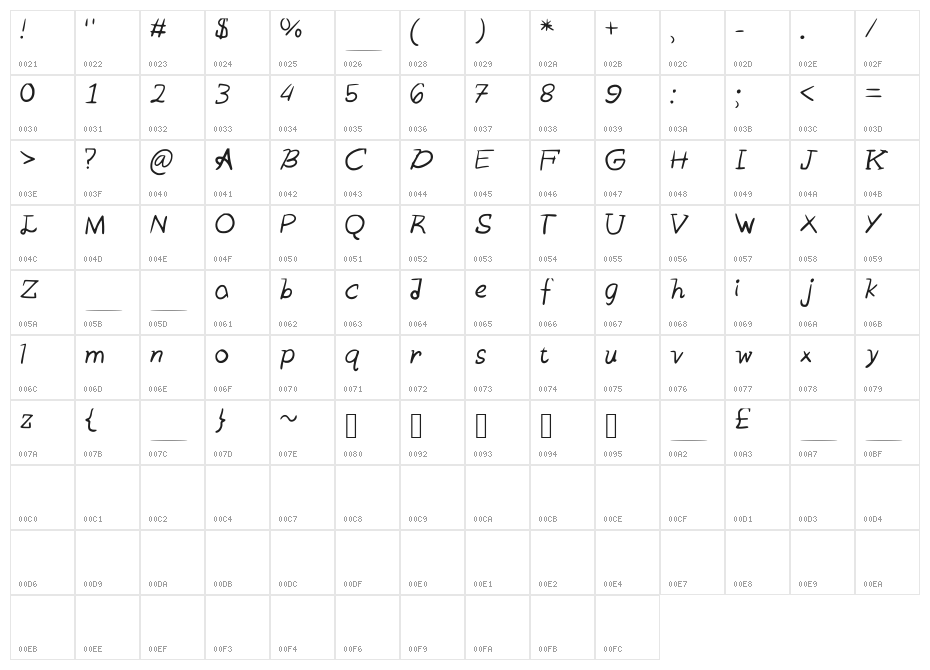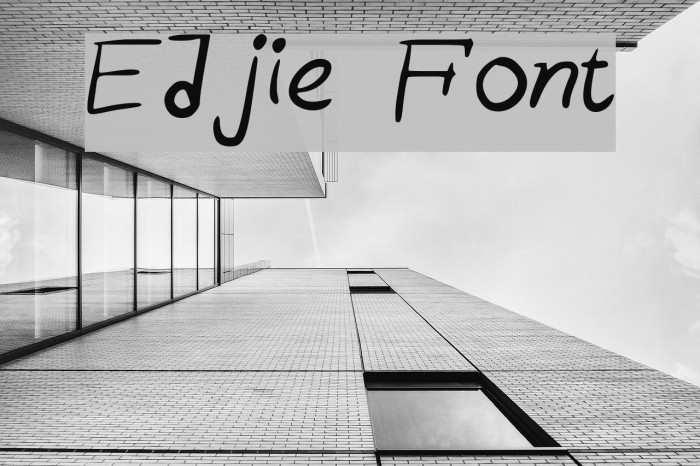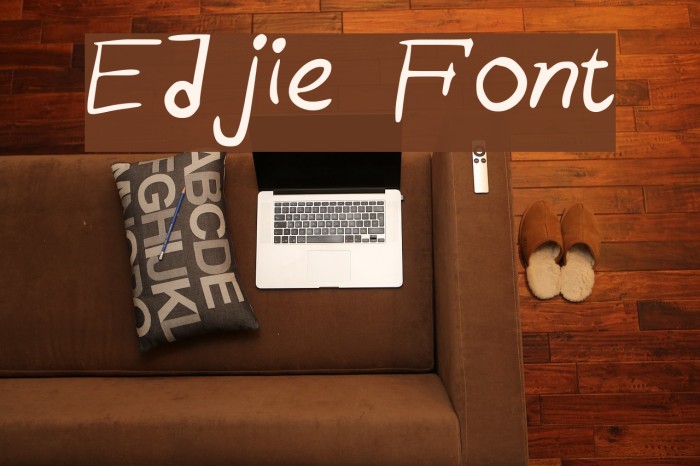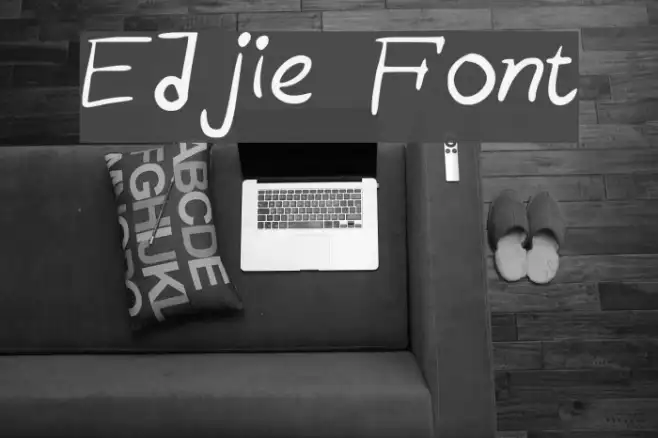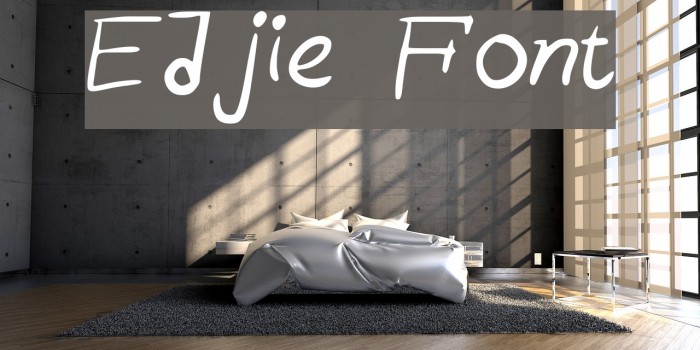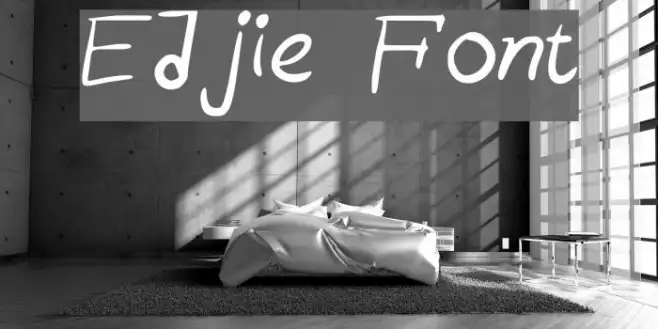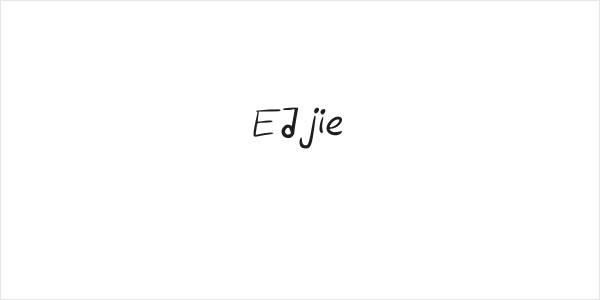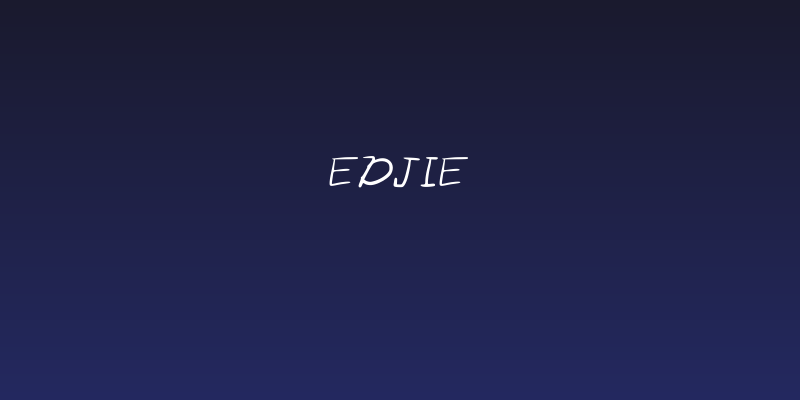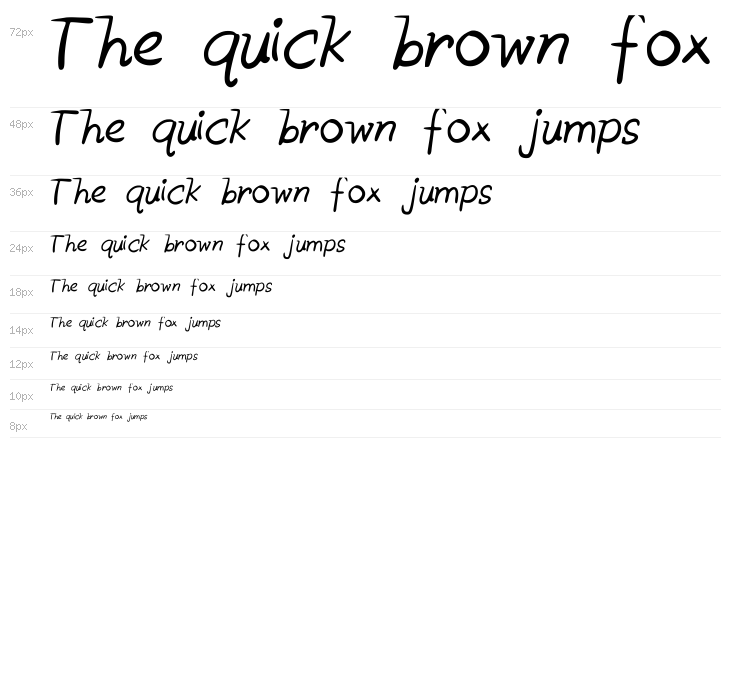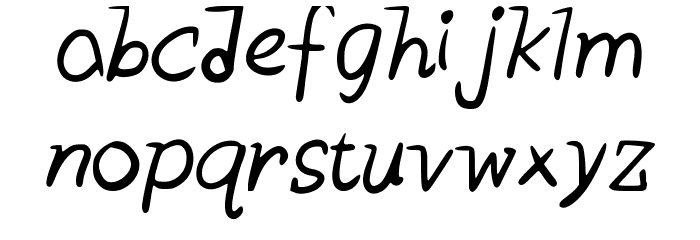
Edjie Font
Edjie Description
This font features a playful and casual script style, characterized by its fluid and slightly irregular strokes. The letters have a hand-drawn appearance, with a slight slant that adds to its informal charm. The uppercase letters are bold and expressive, while the lowercase letters maintain a consistent flow, enhancing readability. The numerals and special characters are designed to match the overall aesthetic, making them suitable for a variety of creative applications. The font's unique style is perfect for projects that require a personal touch, such as invitations, greeting cards, or branding materials that aim to convey warmth and approachability.
Overall StyleCasual
Use CaseHeadlines, Logos, Invitations
Proposed ProjectsIdeal for invitations, greeting cards, branding materials, and creative projects requiring a personal touch.